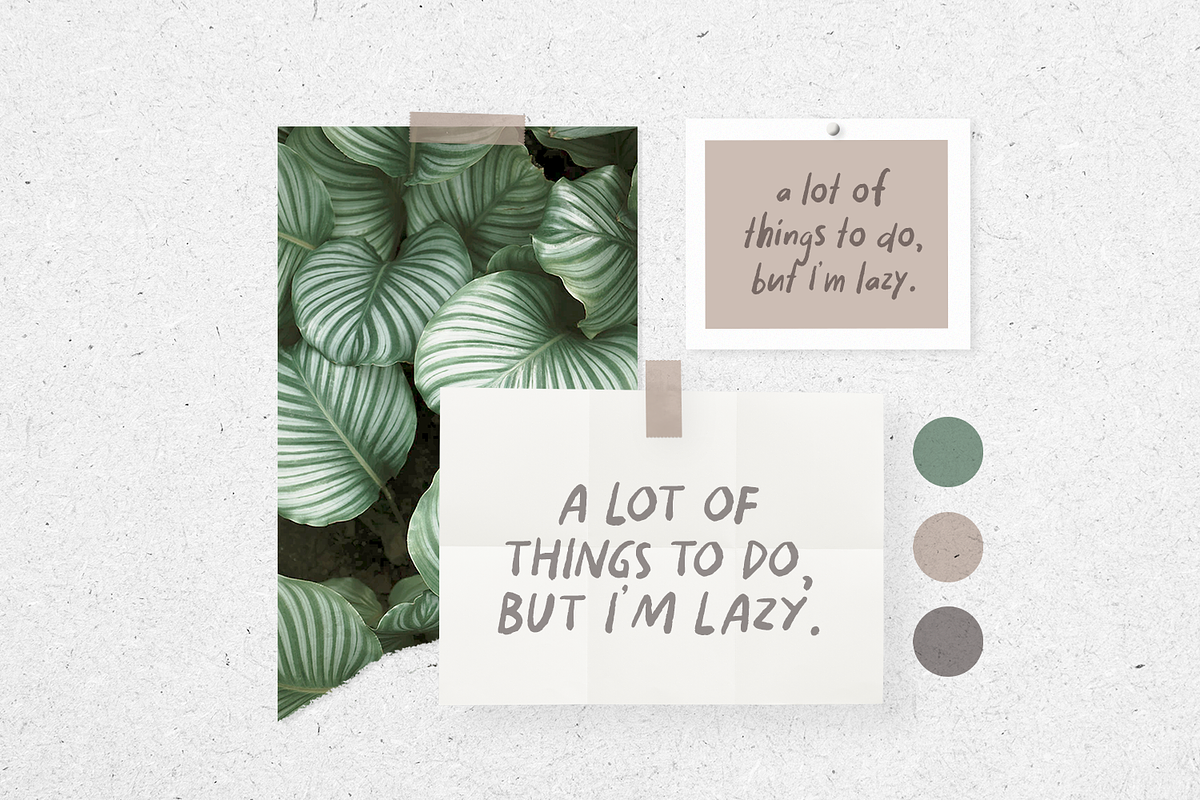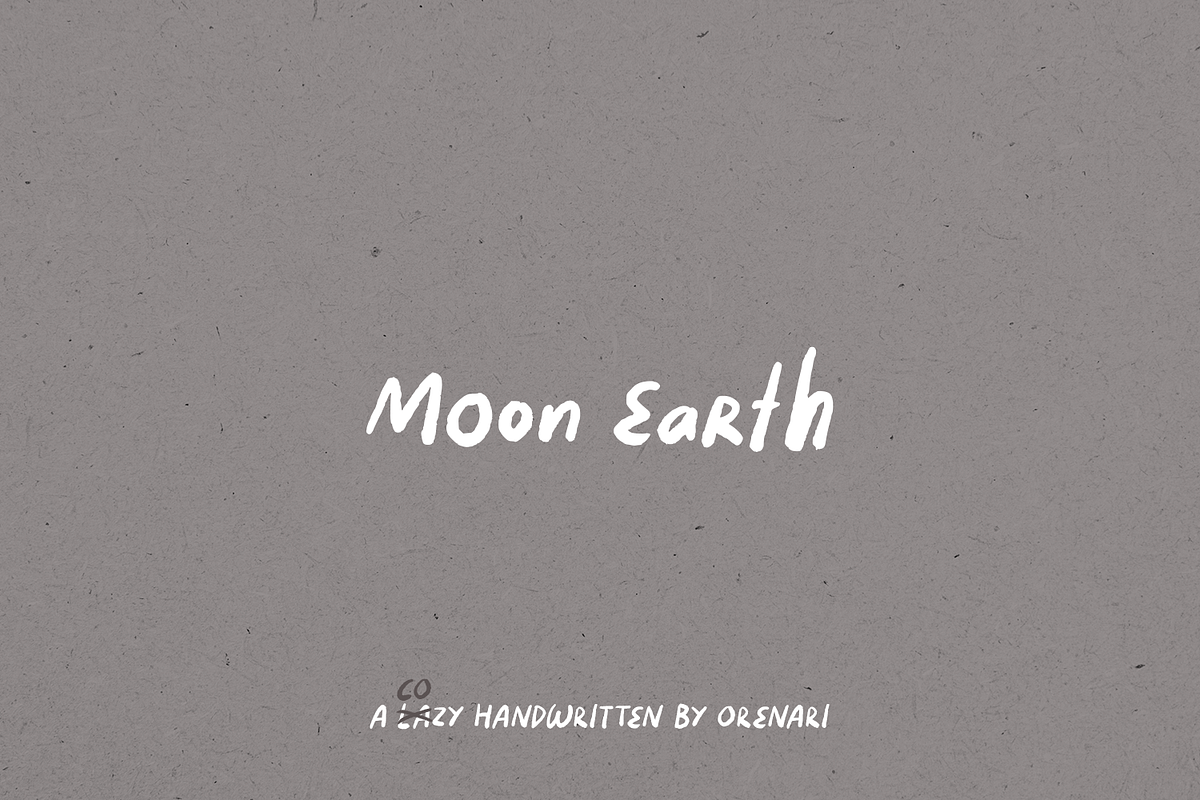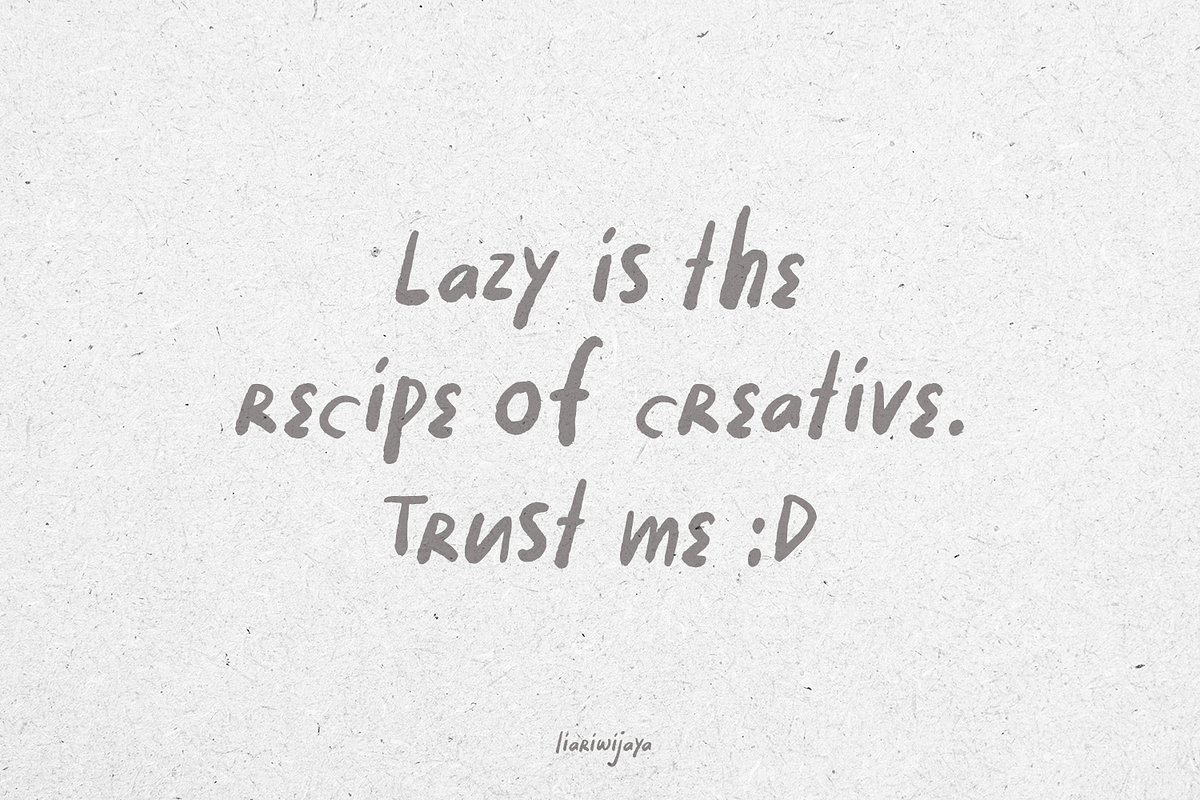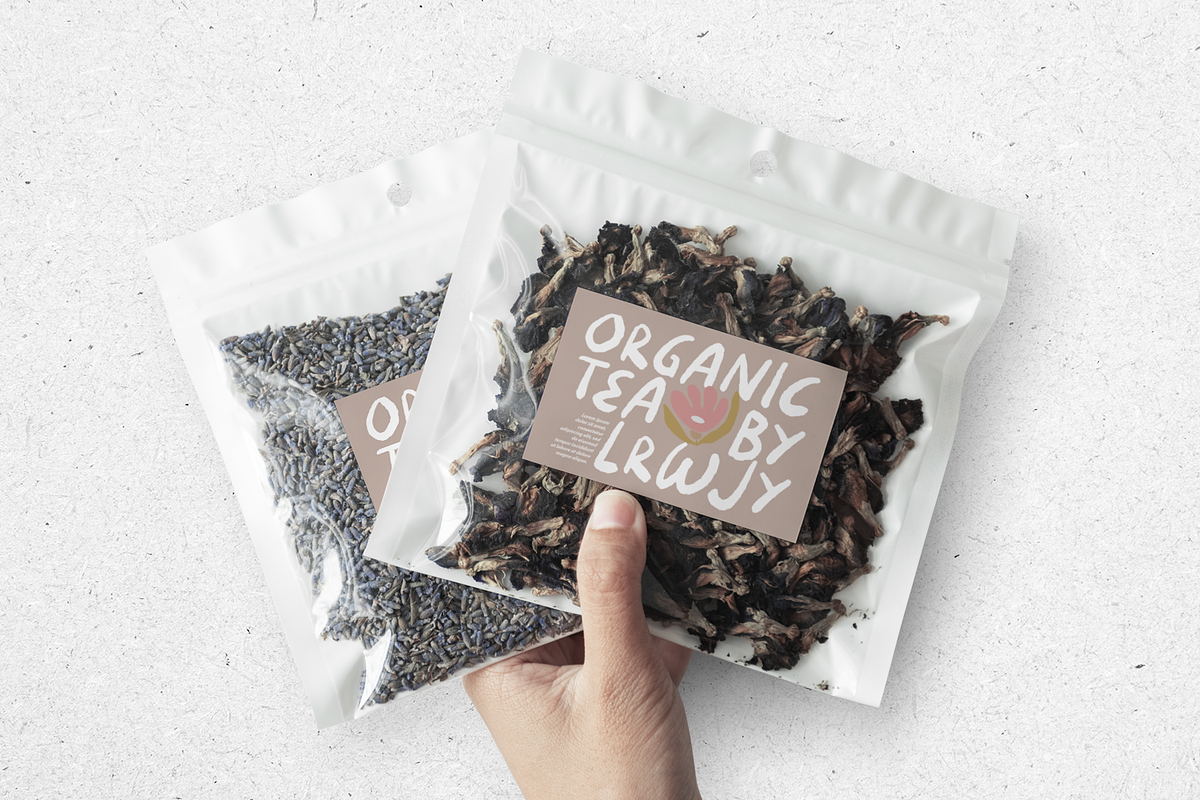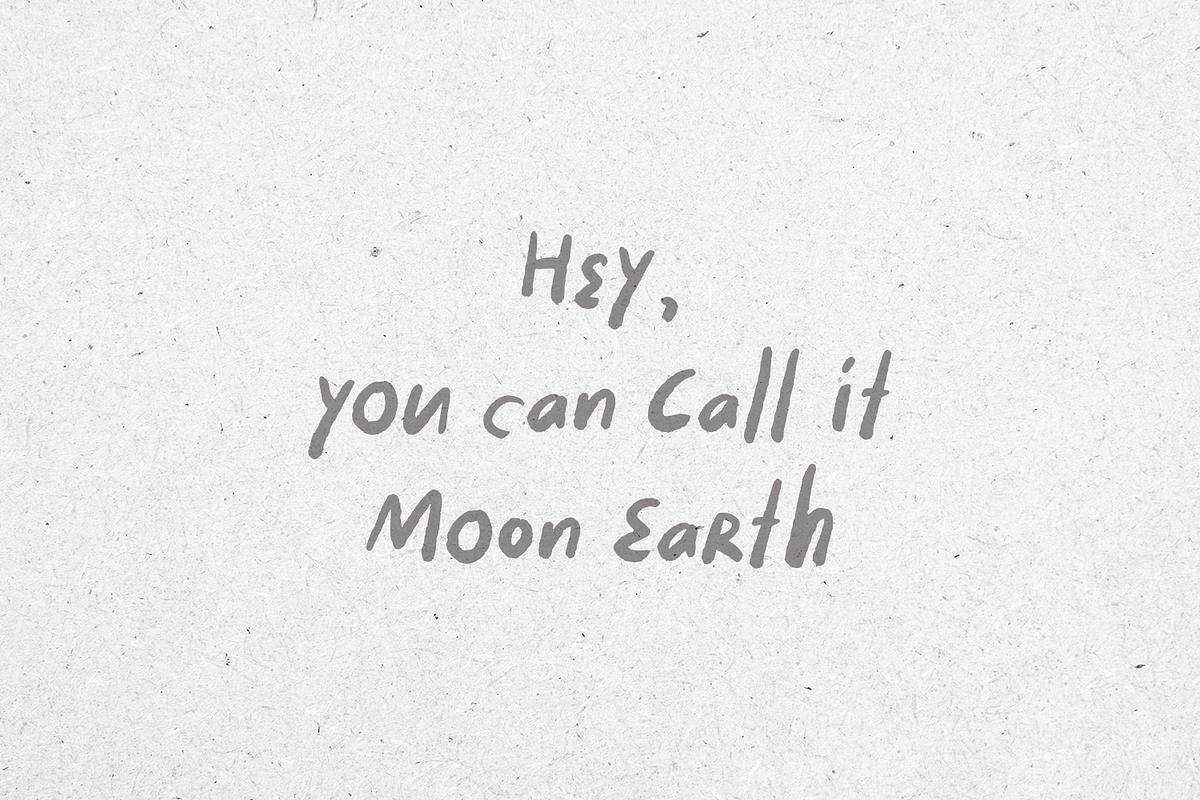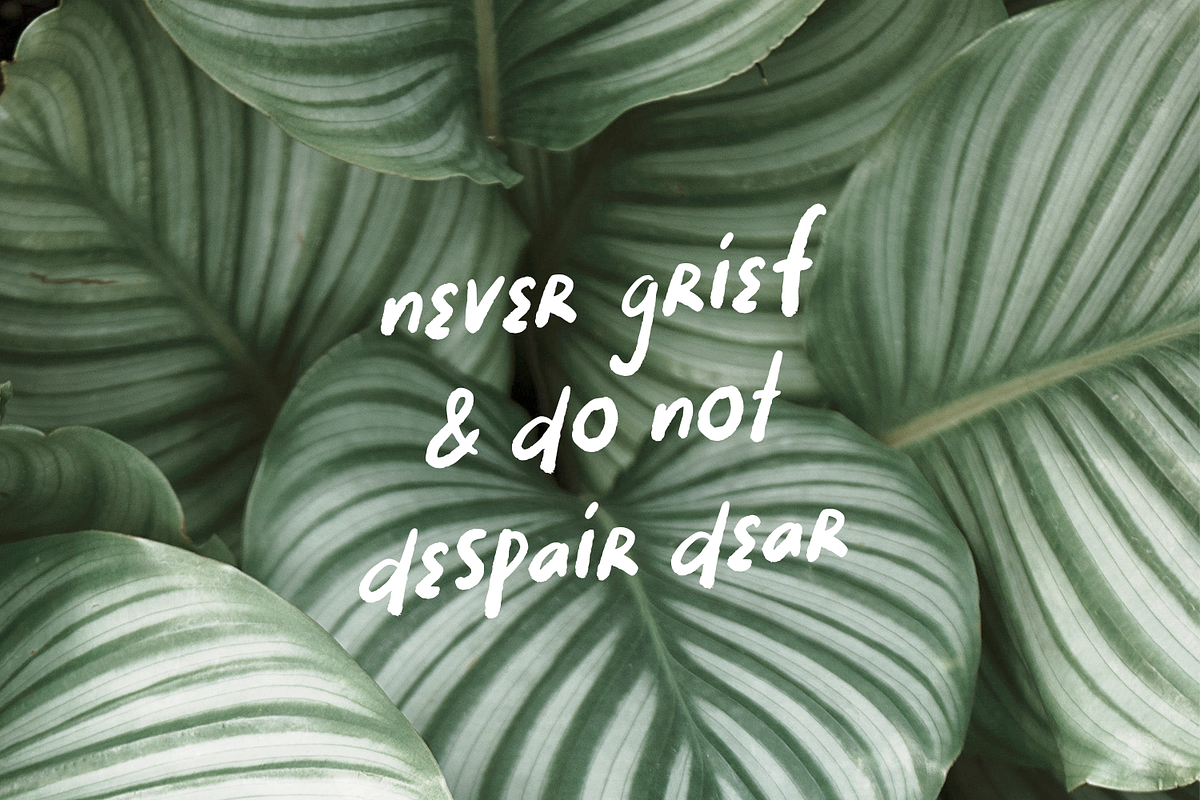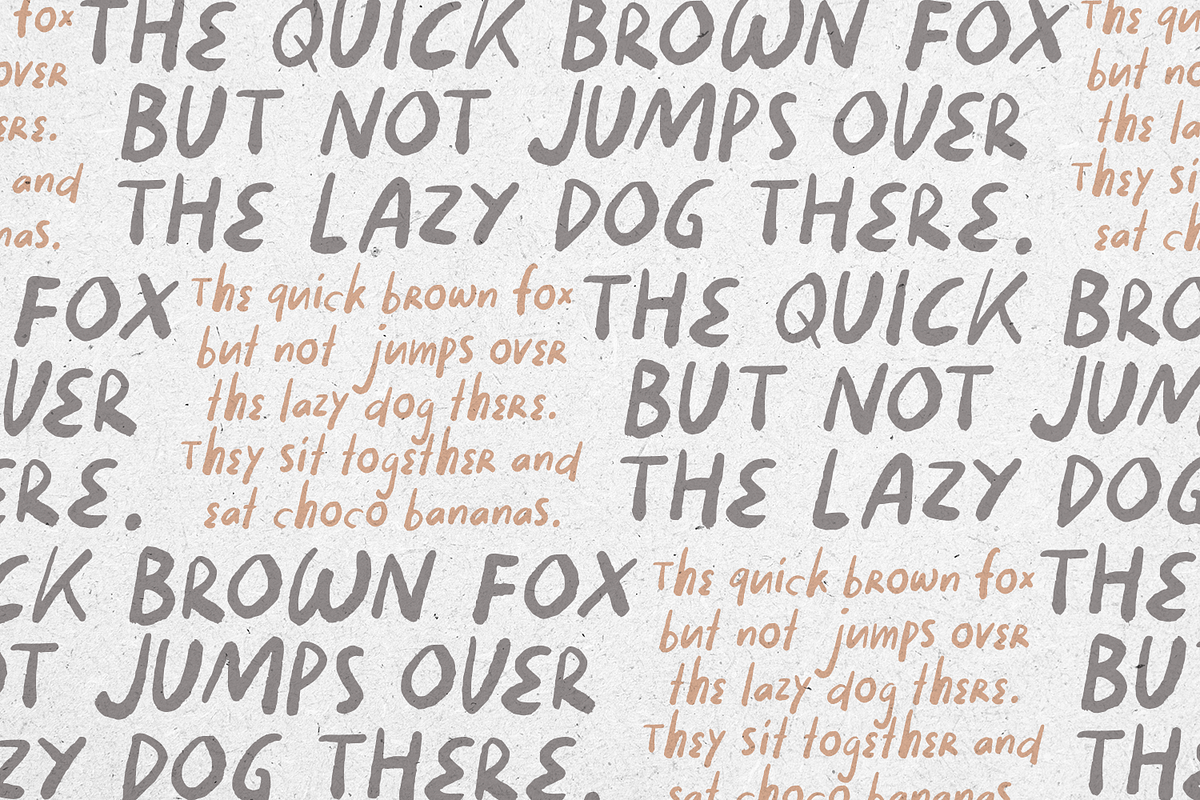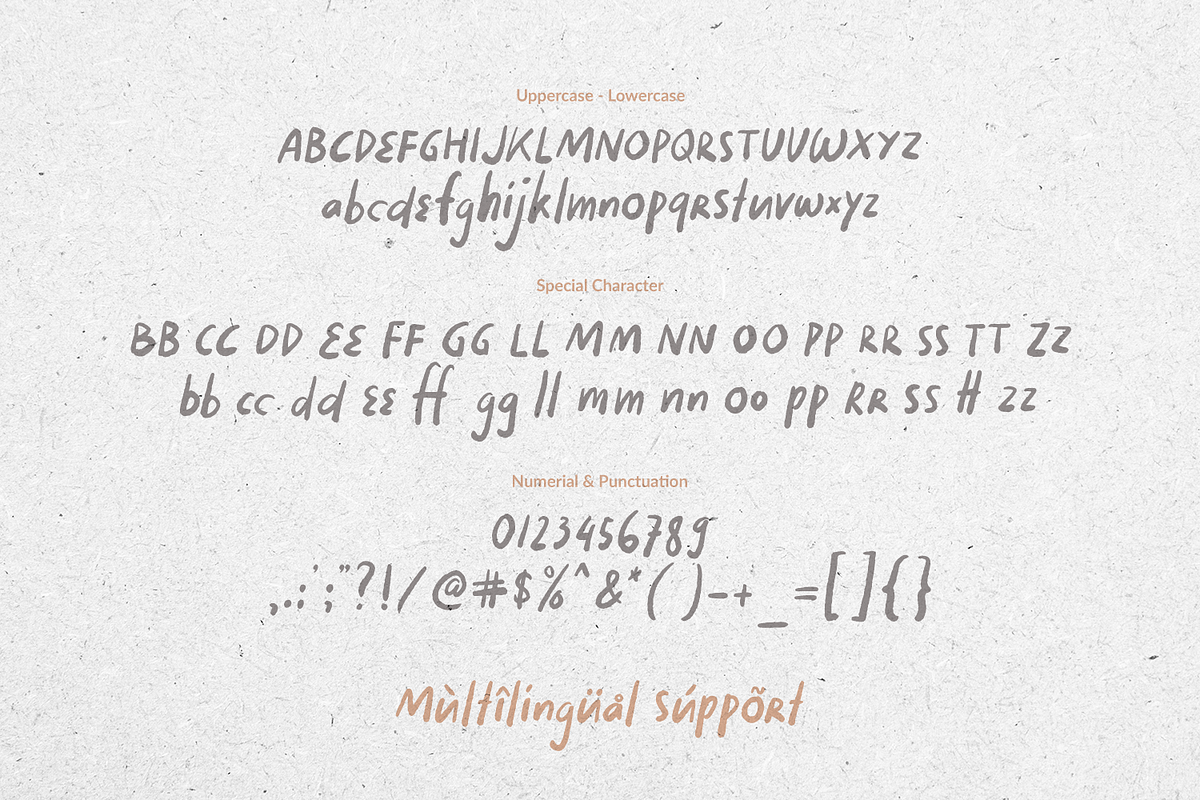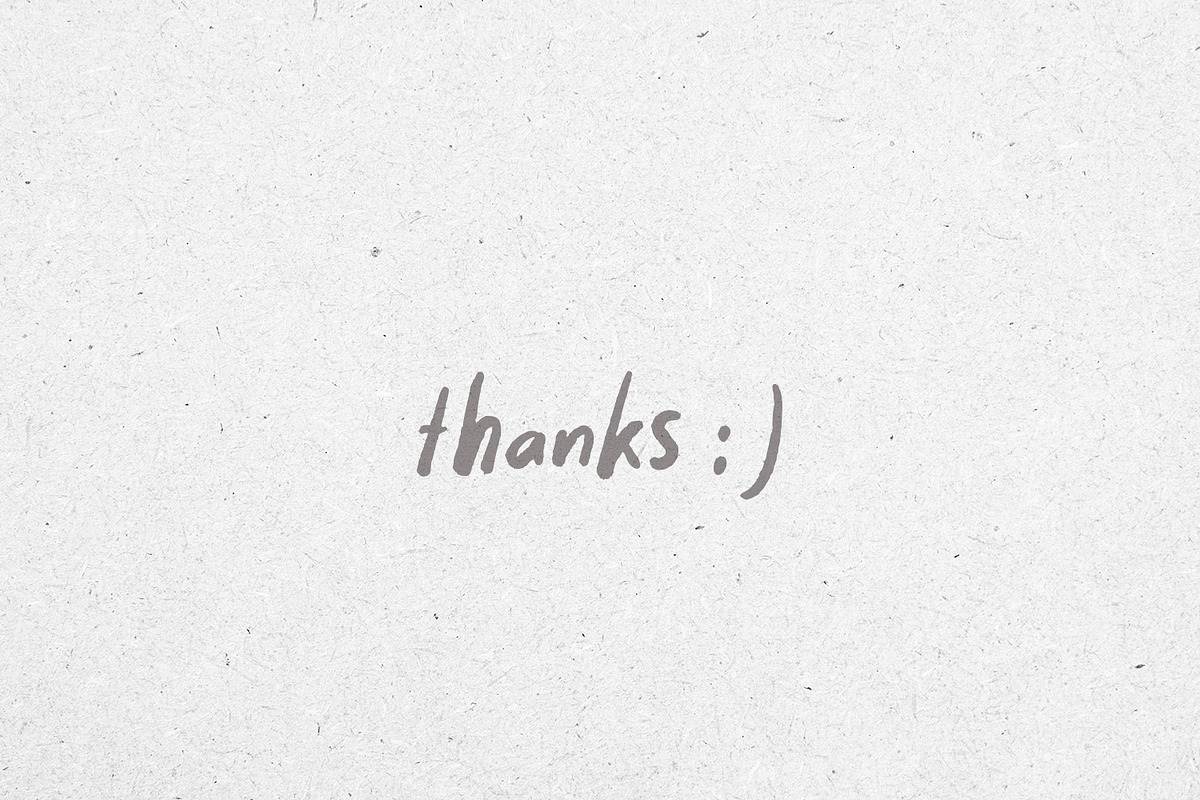
Moon Earth ~ A Cozy Handwritten
Please welcome Moon Earth. A simple cozy handwritting and it's perfect for quotes. Moon Earth also fit for any range of your design projects. This font is naturally written by my self, so the flow of each characters became unique. Take your design project to the next level with Moon Earth.